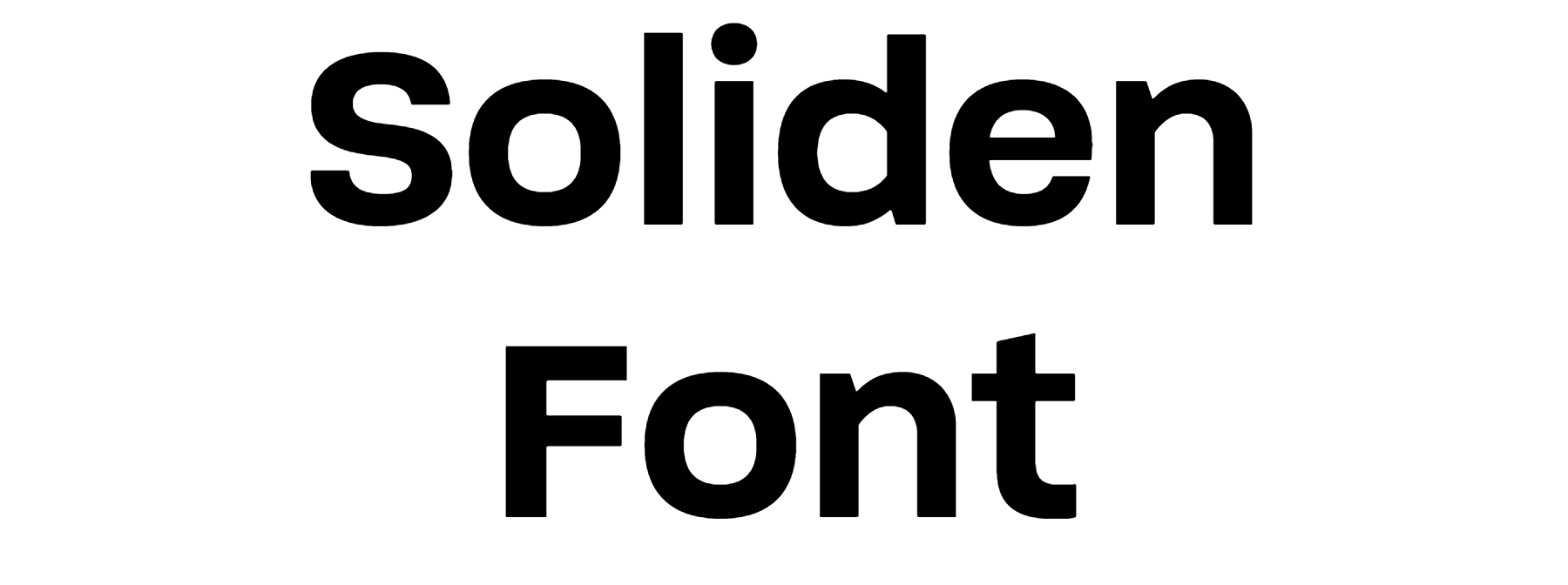
Soliden
Soliden is a sans serif font designed by Eko Bimantara (2022). Its clean letters skip the little "feet" (serifs) of traditional type, so it looks modern and reads well on screens. You get six styles in one free ZIP, and the preview above lets you test each one before you download.
Soliden Font Details
- Designer: Eko Bimantara
- Font styles: 6 (Regular, Bold, Bold Condensed, Bold Expanded, Condensed and Expanded)
- Glyphs: 394 in the Regular style
What You Can Type With Soliden
Soliden covers the full alphabet in upper and lowercase, plus all ten numbers, so you can set names, dates and prices without switching fonts. Common punctuation such as &, !, ? and @ is included as well. It also has the accented letters you need for Spanish, French, German, Portuguese and Italian.
Where Soliden Works Best
Soliden is a natural fit for websites, app screens and clean logos. Its lowercase letters are tall compared to the capitals, which keeps it readable at smaller sizes. It works for headings and body text alike. If the download has several weights, use a heavier one for titles and a lighter one for paragraphs. Because the family has more than one style, you can mix them in a single design for headings, subheadings and highlights.
Who designed Soliden font?
Does Soliden support accented letters?
Yes. Soliden includes the accented letters needed for Spanish, French, German, Portuguese and Italian, so it works for more than just English.